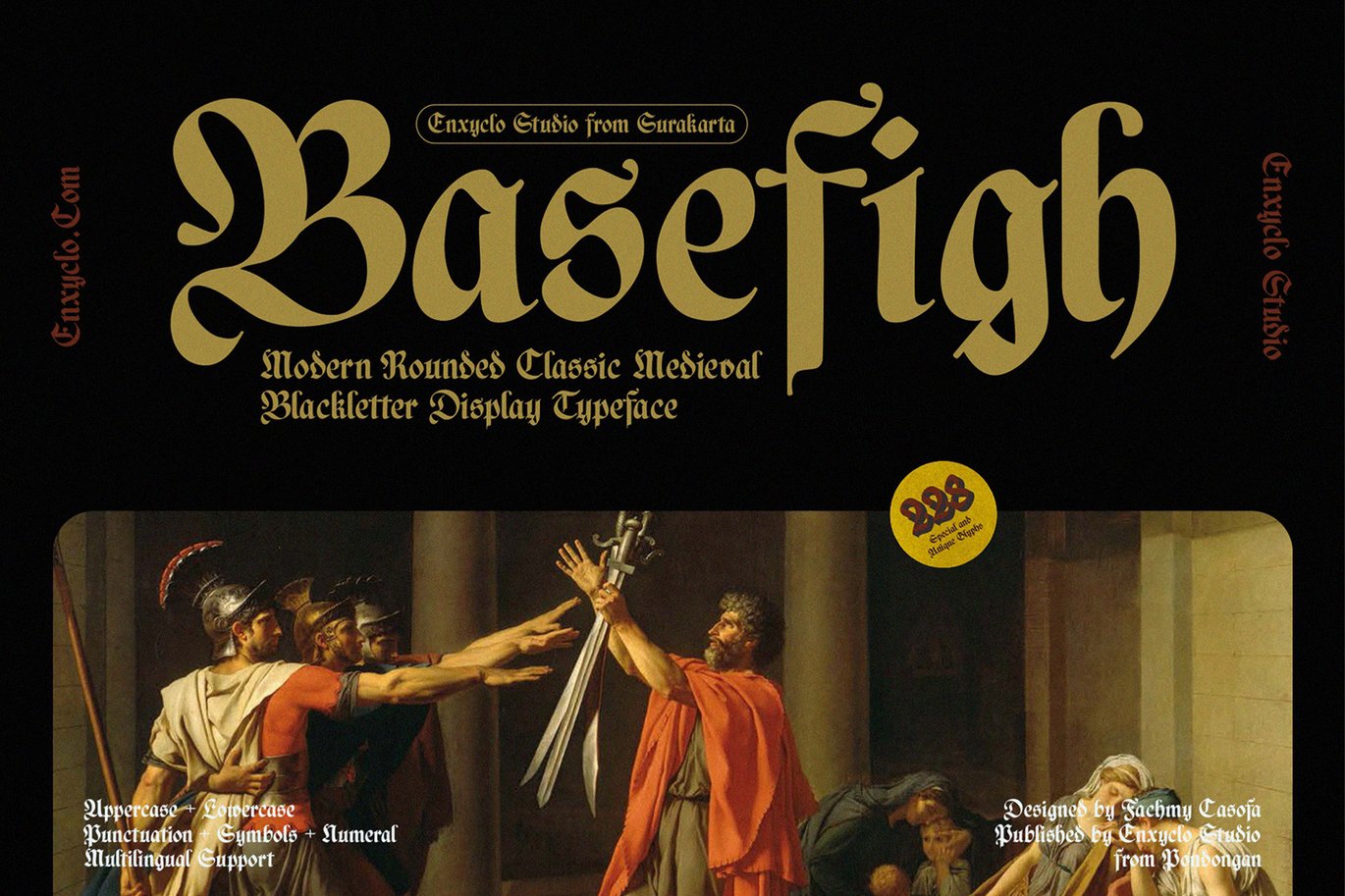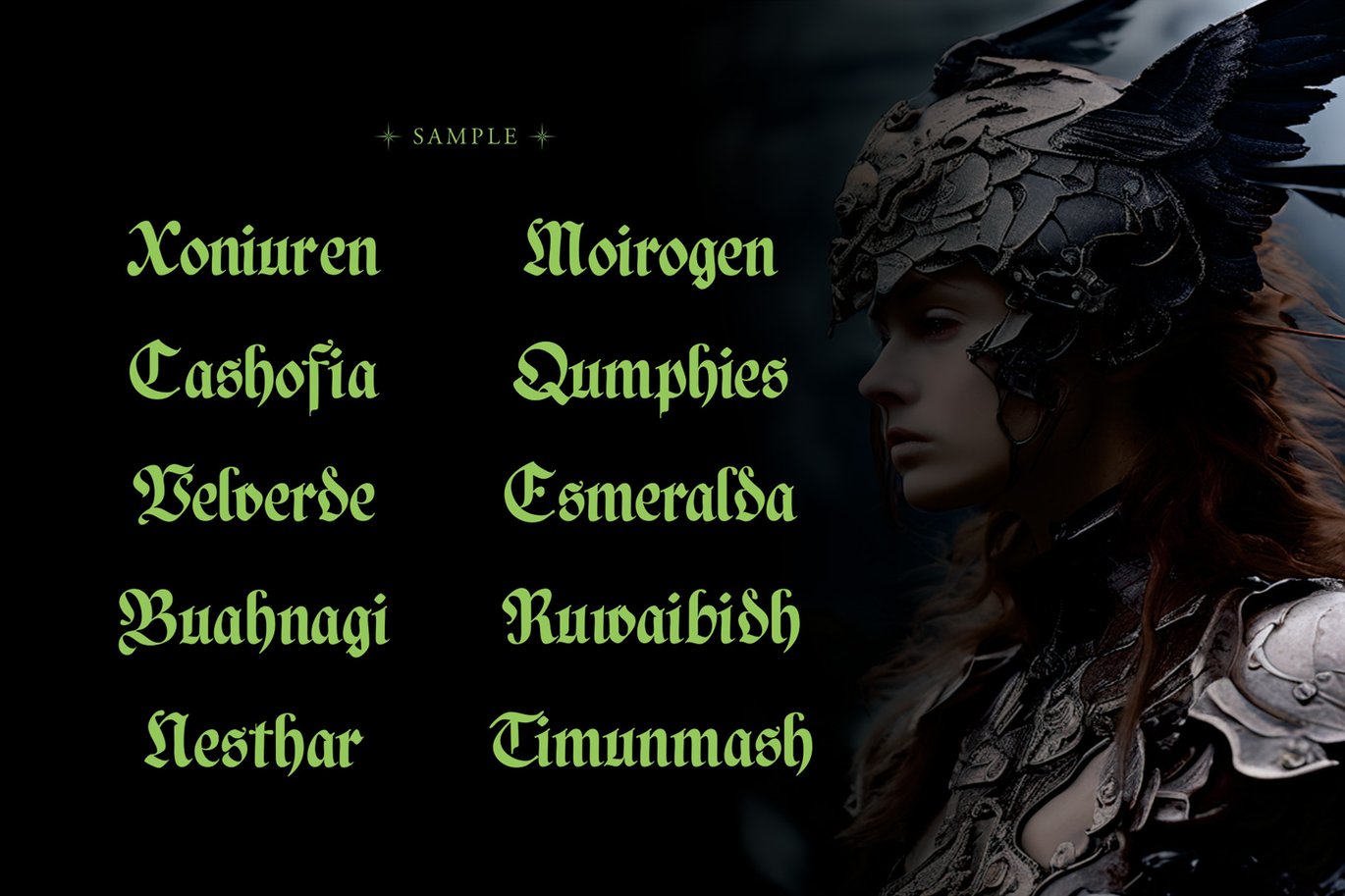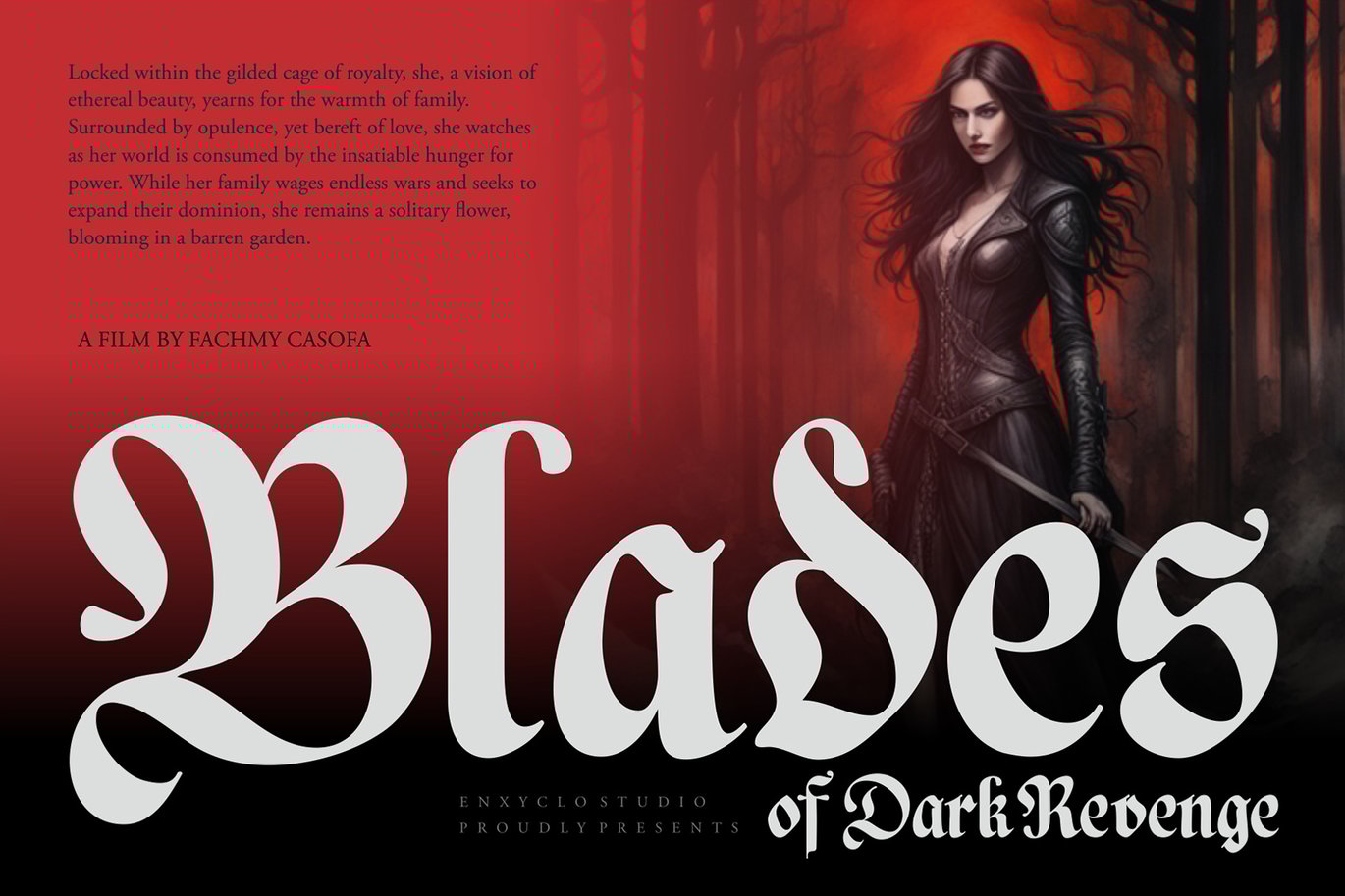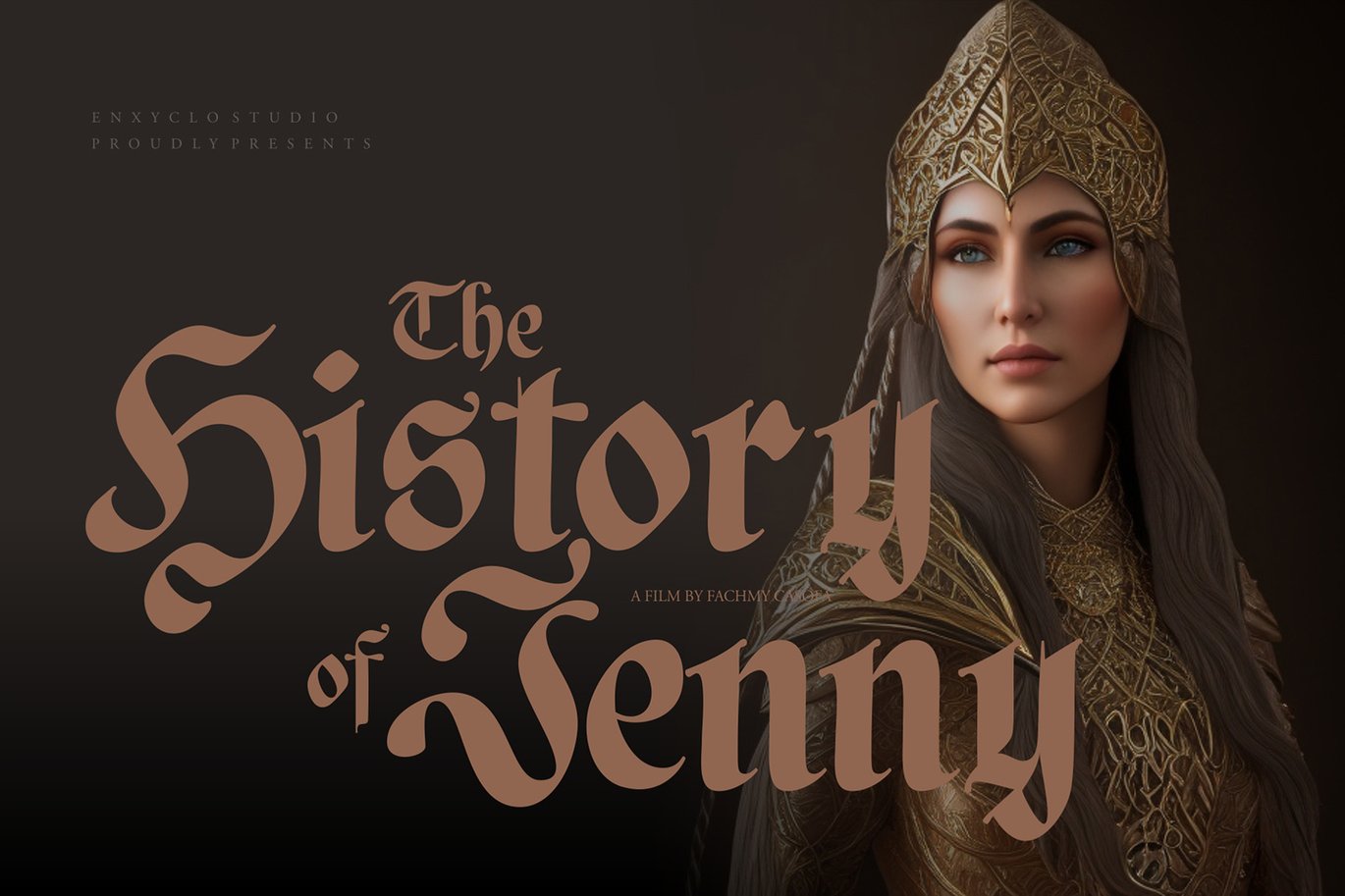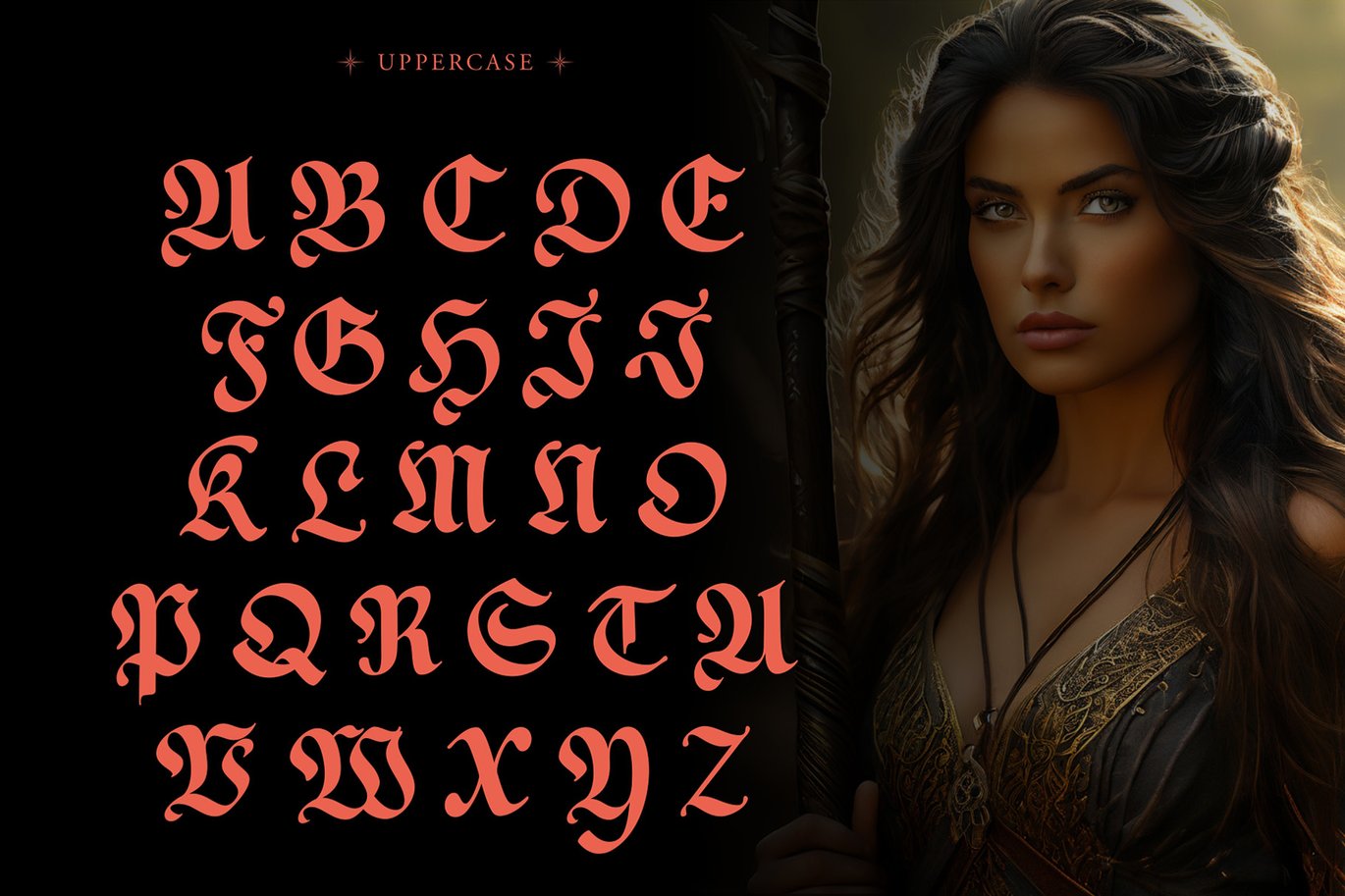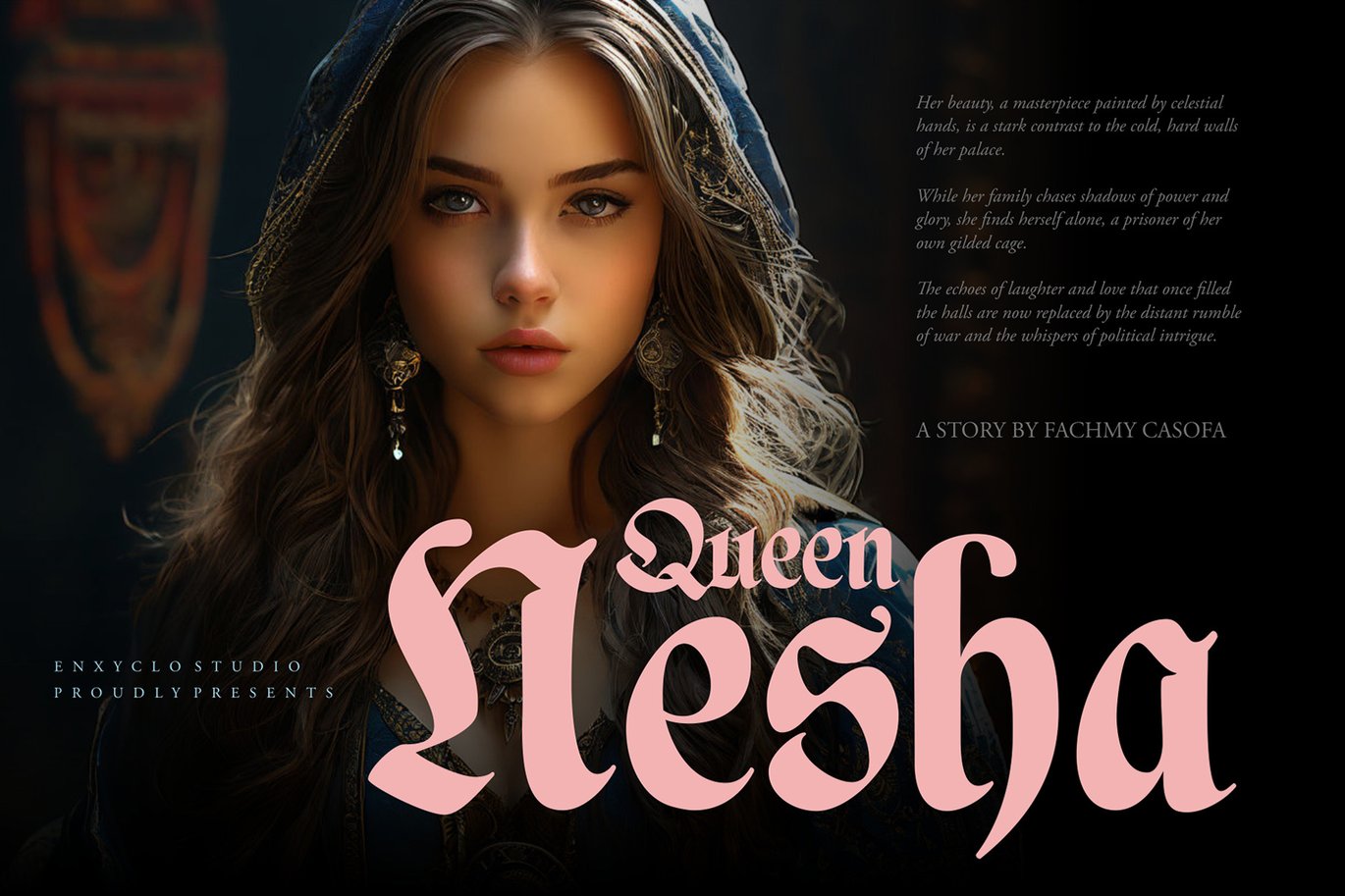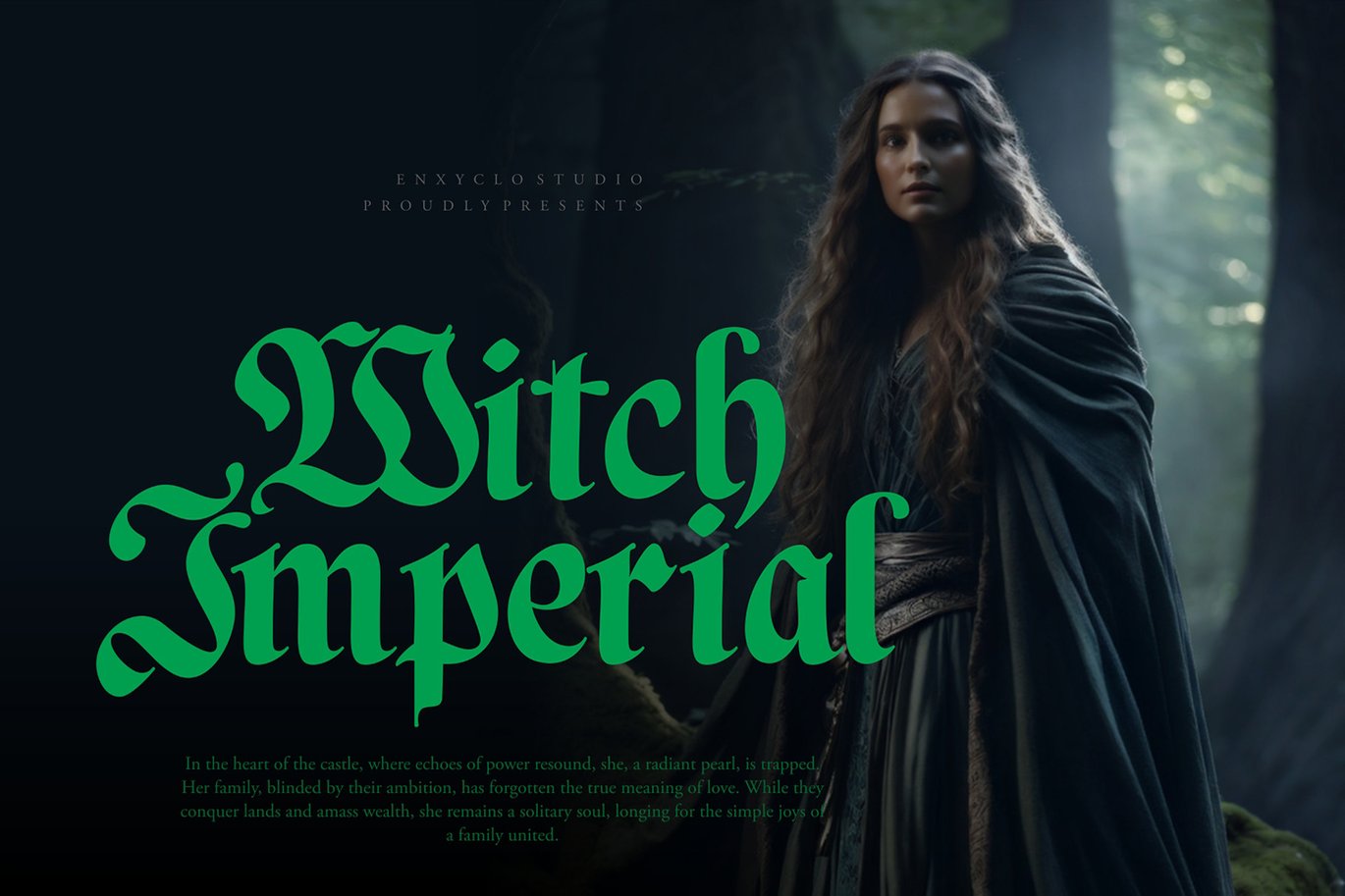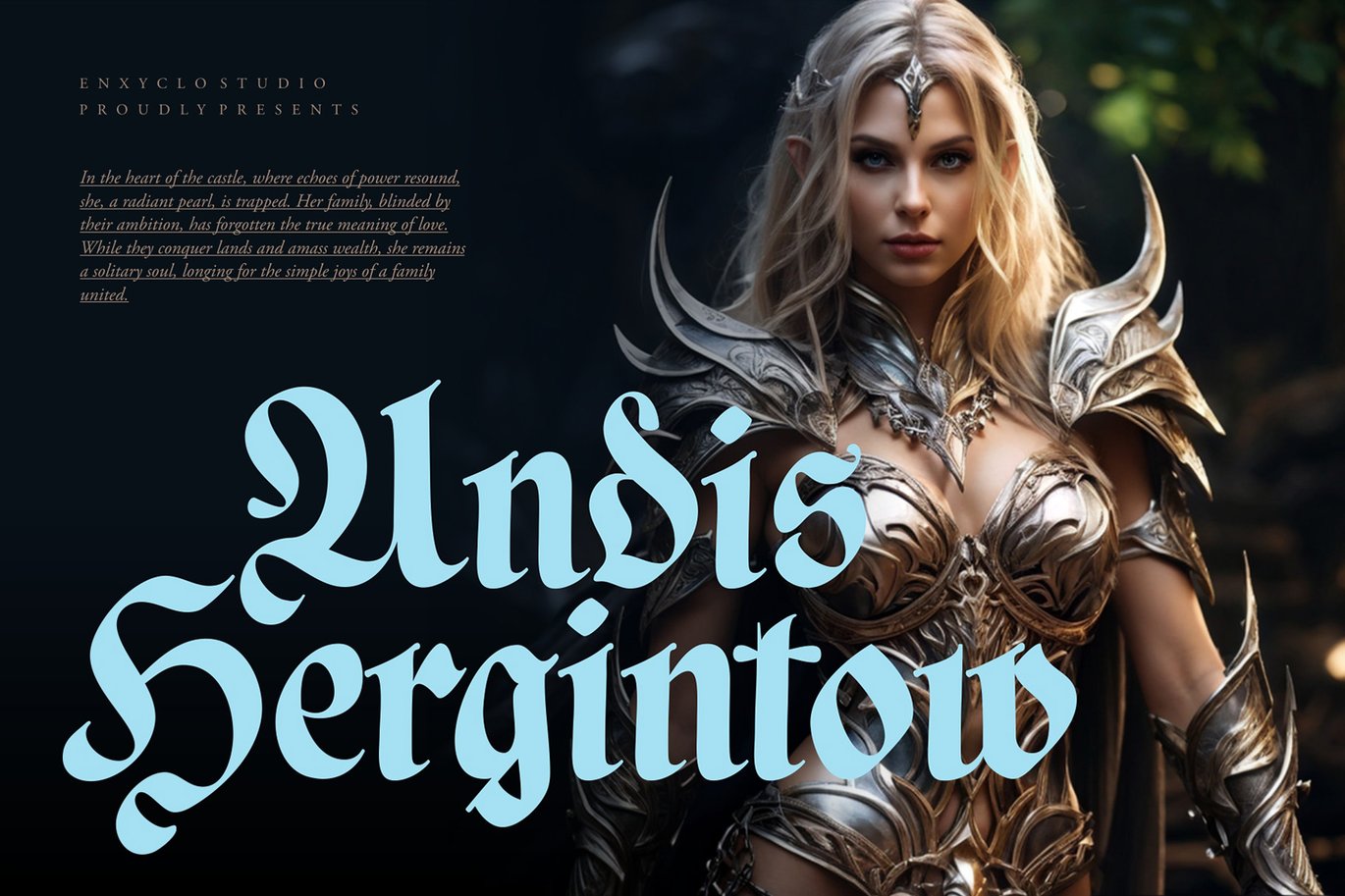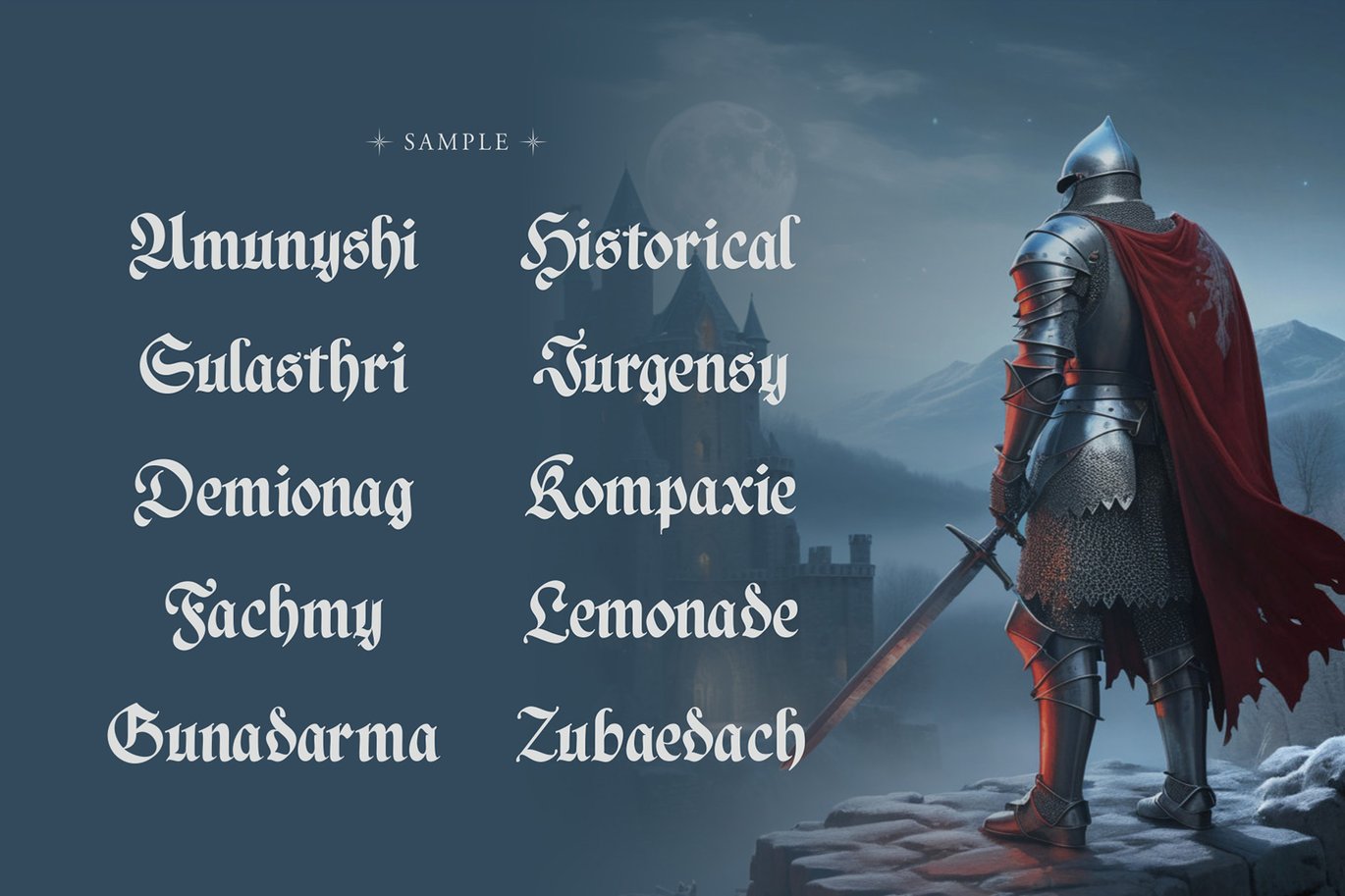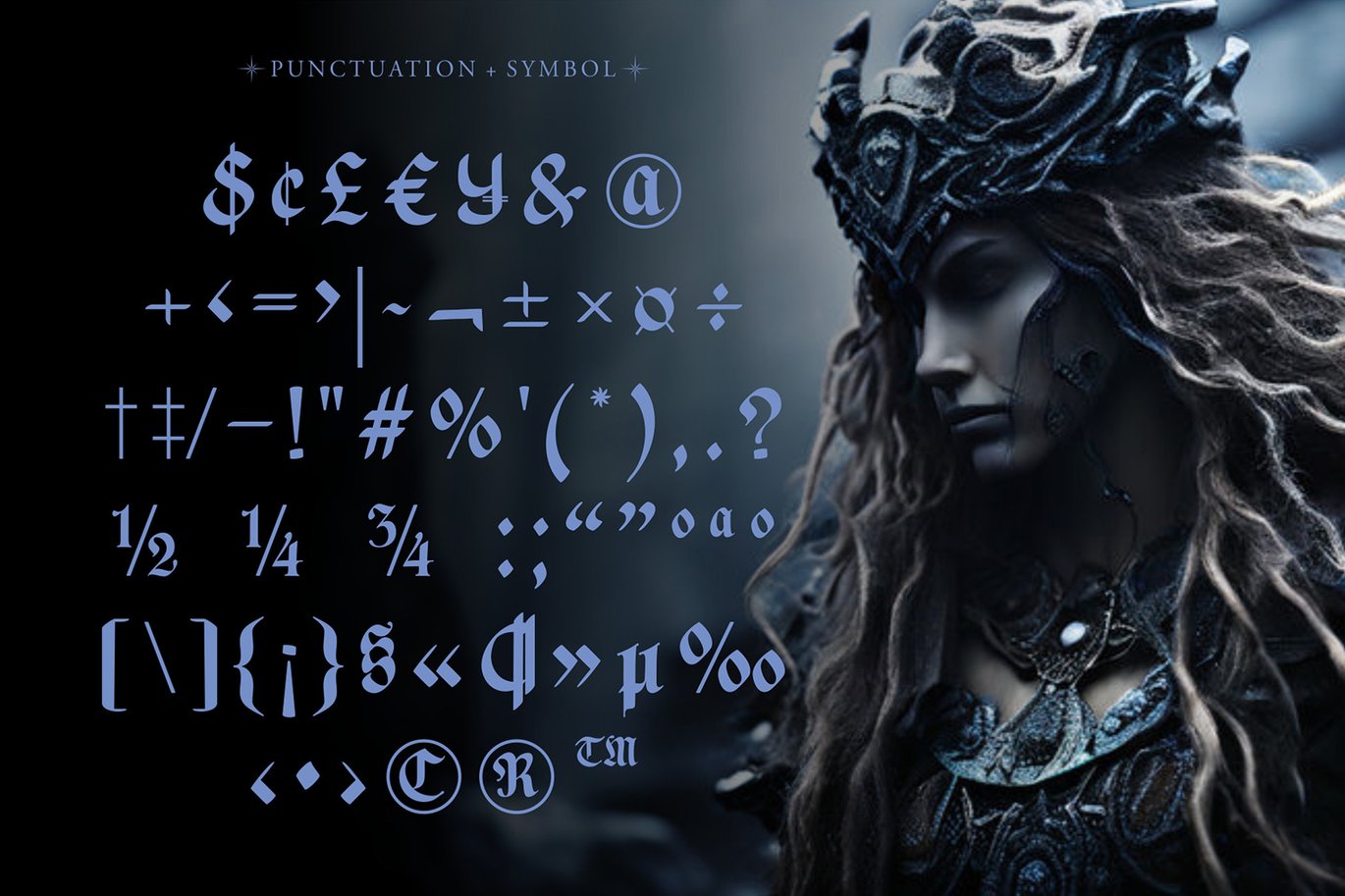
Basefigh – Medieval Rounded Blackletter Font
NCL Basefigh is a medieval rounded blackletter font. The letters are inspired from the middle ages with a blackletter style but have rounded corners which are unique and modern. Very suitable for creative projects that have a medieval theme or contemporary designs but have a classic touch. Its modern aesthetics bring a whole new dimension to your designs, making them stand out. Whether you’re working on a website, poster, logo, or any other project, this font adds that extra touch of innovation and sophistication.